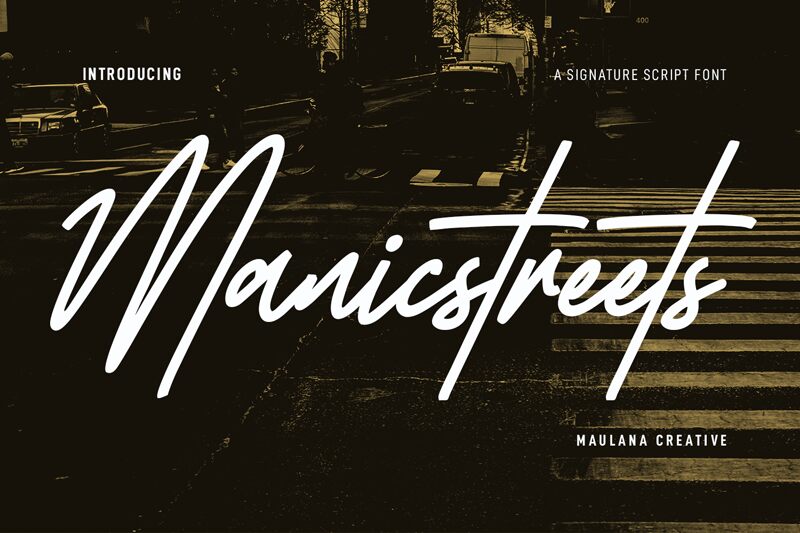
Manic Streets Free Regular
Manic Streets is the perfect handwritten signature font for those looking to add a touch of class and elegance to their projects. Designed by Maulana Creative, this light-weight font offers a condensed width that makes it perfect for titles, headlines, logos, and other design elements where space is limited. Whether you're designing wedding invitations or creating a professional business card, Manic Streets will provide your project with a unique and stylish flair. Its handwritten style adds a personal touch that's ideal for branding and marketing materials, making it suitable for fashion boutiques, beauty bloggers, event planners, or any creative entrepreneur looking to elevate their brand identity.